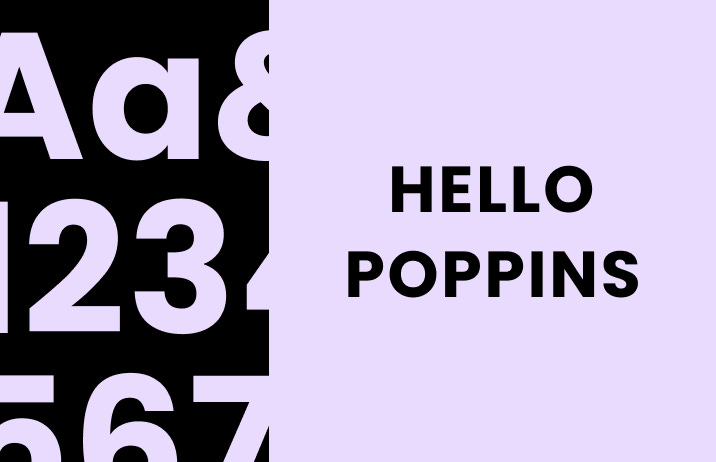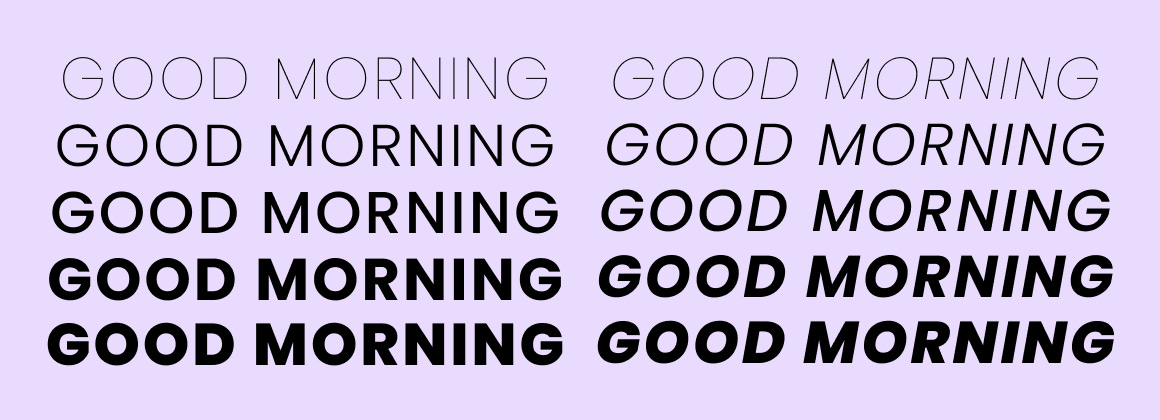
Font of the Week: Poppins
Font of the Week
All About Poppins
Poppins is a versatile, geometric sans-serif typeface. It has clean, monolinear strokes and a contemporary feel, making it suitable for use in headings, logos, and web design. Its polished look makes it a go-to for designers seeking a sharp, modern style. My favorite part is that Poppins has great multi-lingual support, due to having an extensive character set. Poppin’s consistent stroke contrast also creates a clean and minimalist look.
Font Details
Geometric: Poppins features strong geometric shapes that look modern and playful
Monolinear Strokes: The font’s fairly uniform stroke width across all letters creates a clean, cohesive appearance.
How to Use Poppins for Logo?
With its geometric style and rounded forms, Poppins is ideal for logos in tech, design, or educational industries. Its modern and playful vibe adds a sense of creativity to a brand. This font is highly versatile and works well when used alongside simple shapes and vibrant colors to create a youthful and dynamic logo.
How to Use Poppins for Branding & Marketing?
Poppins' geometric and versatile design makes it highly suitable for tech or educational marketing. It conveys creativity and modernity, making it a great choice for brands in innovation-driven industries. Use it in flyers, social media graphics, or product advertisements to engage a youthful audience.
Poppins Font Pairing
Poppins + Lora
Poppins + Oswald
Poppins + Merriweather